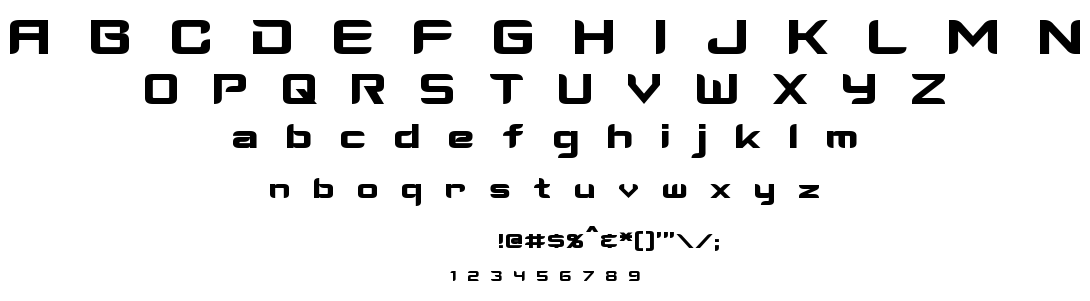
A font based on the new ‘Cyberverse’ line logo, as well as the ‘Rise of Cobra’ logo. Includes full alphabet, accent characters, and euro. Also includes Oblique version of the font.